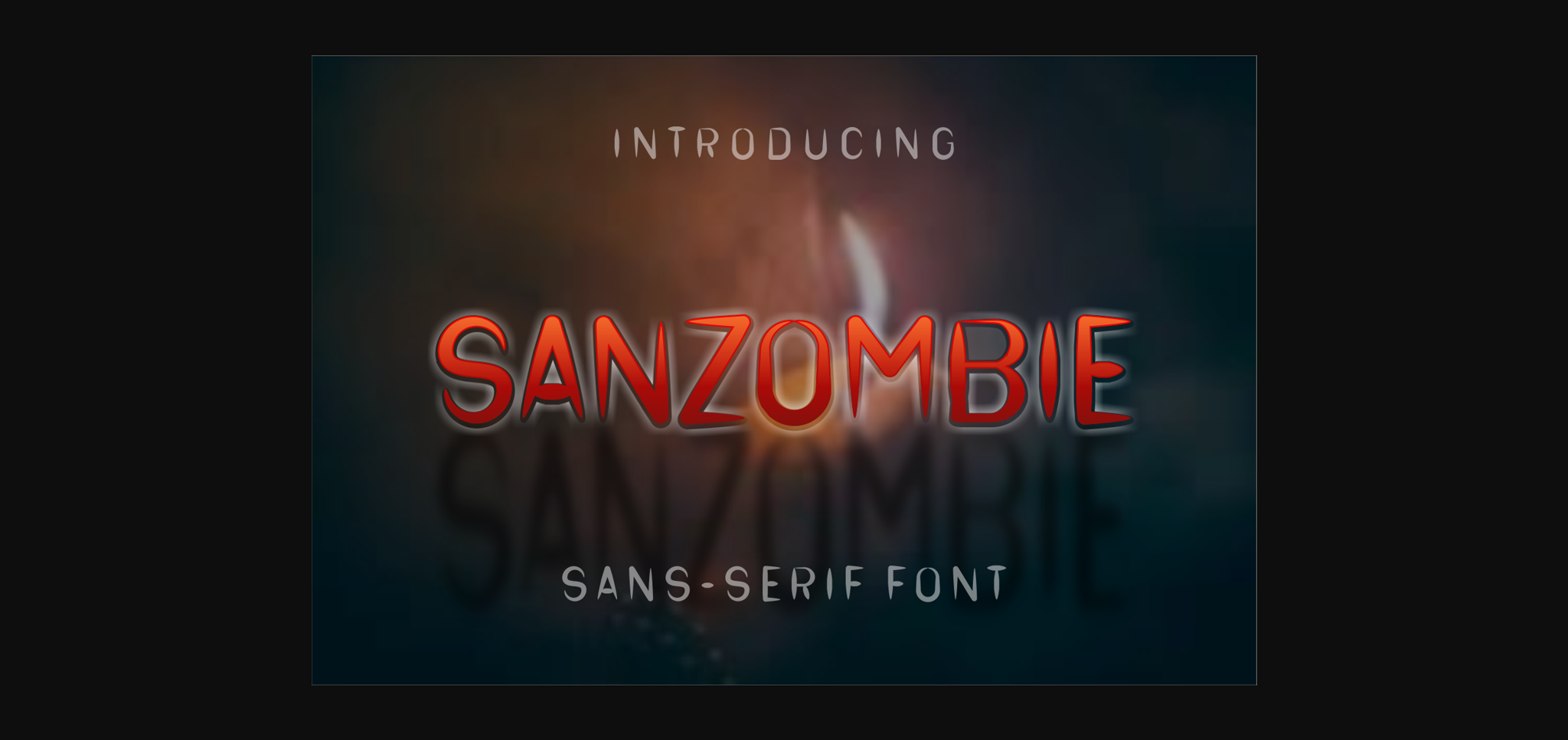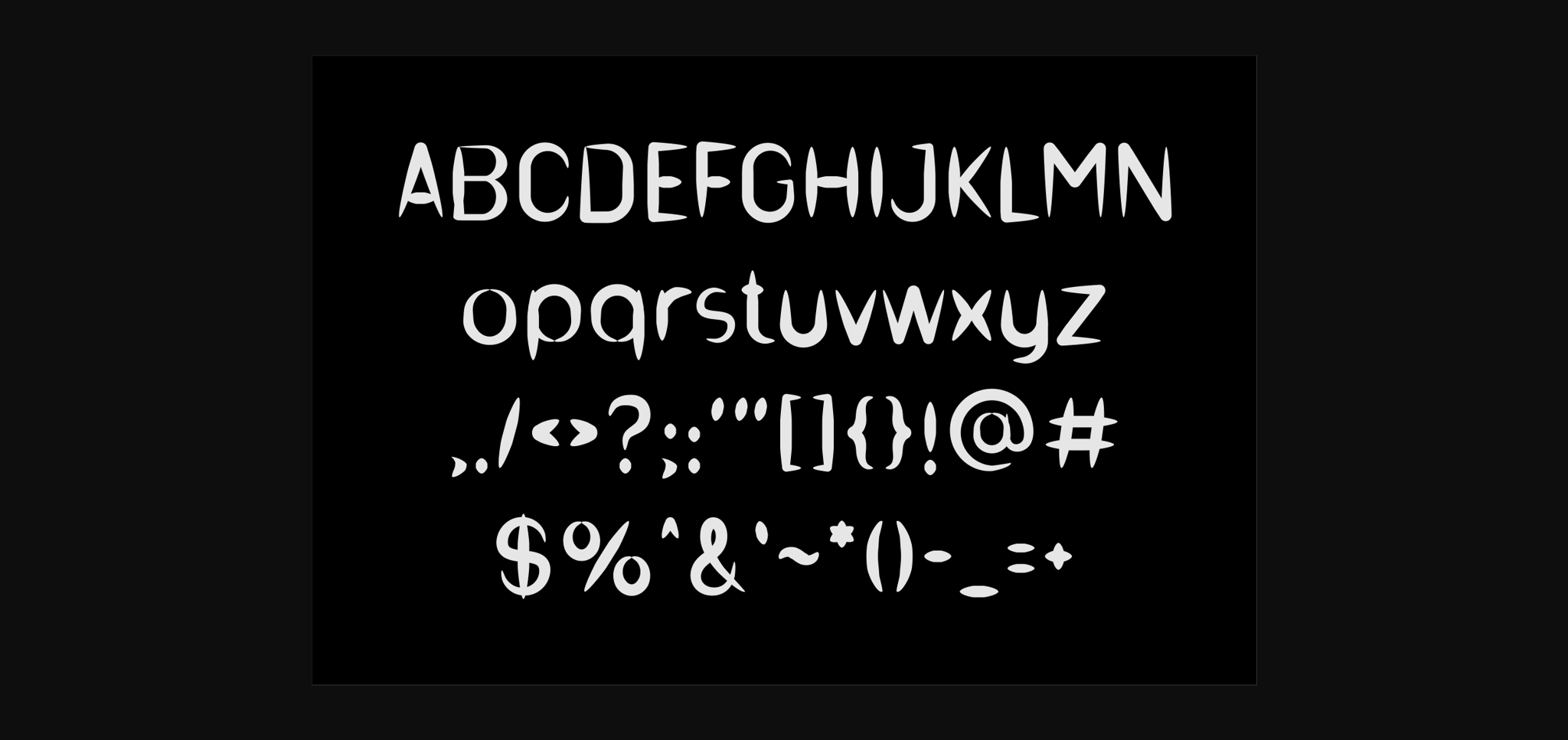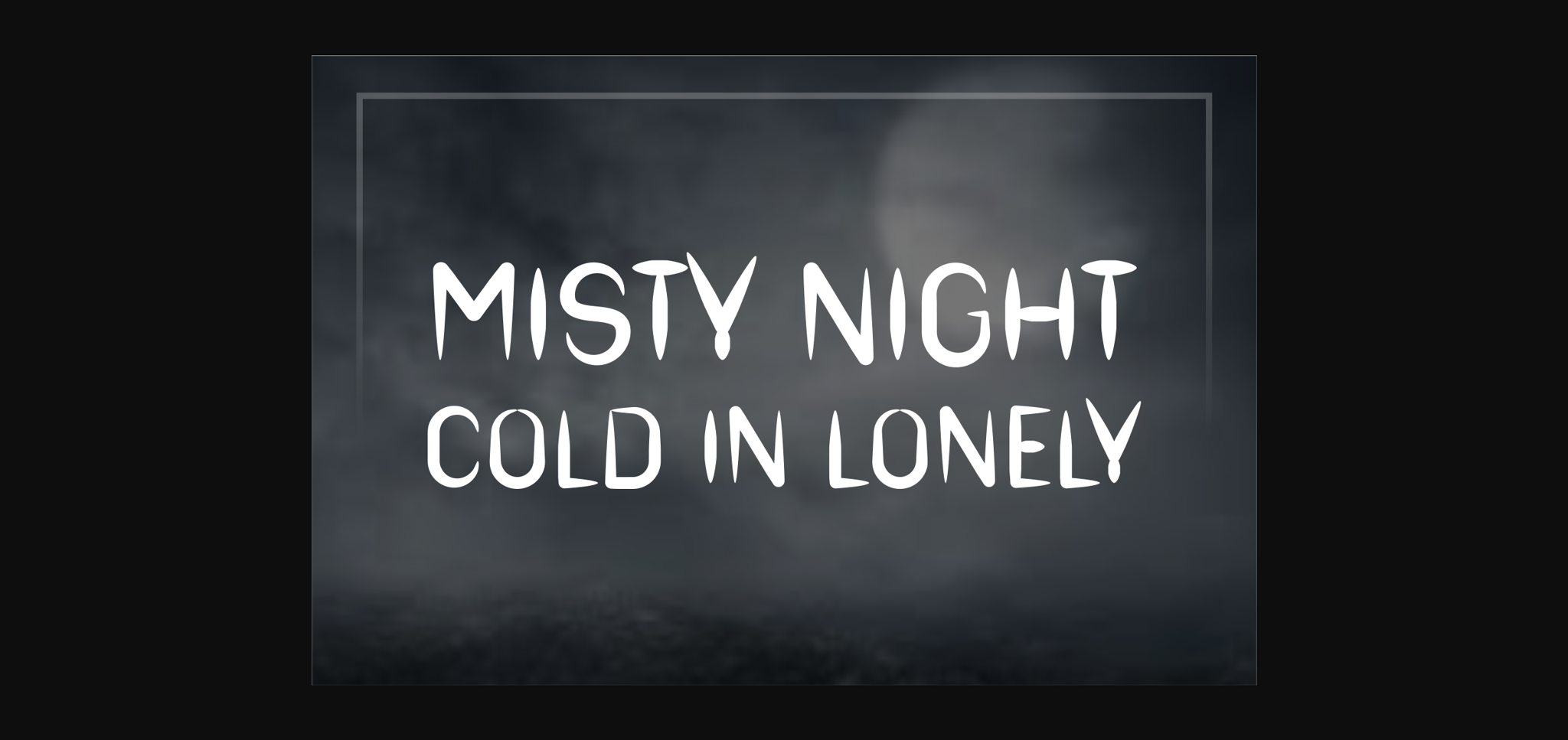
About Sanzombie Font
Sanzombie is a cool and unique sans serif font. Fall in love with its incredibly distinct and timeless style and use it to create spectacular designs!